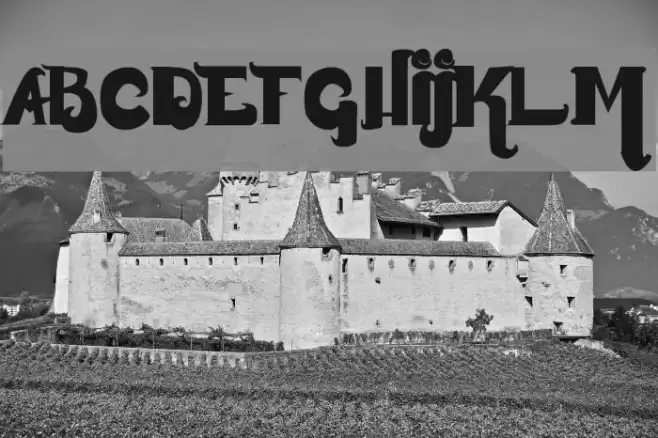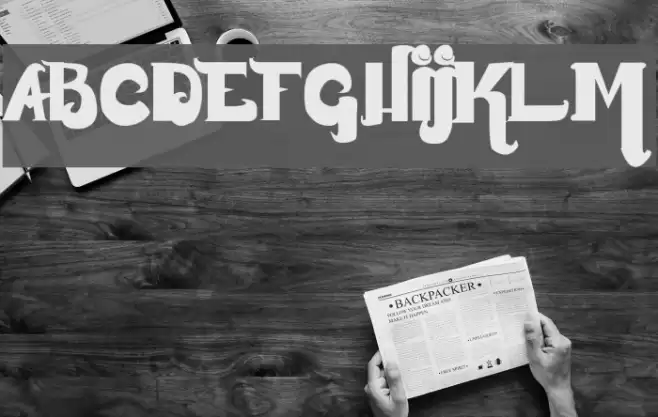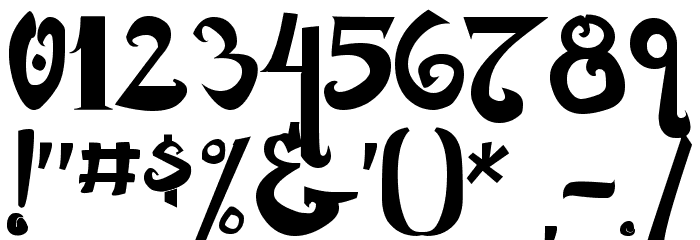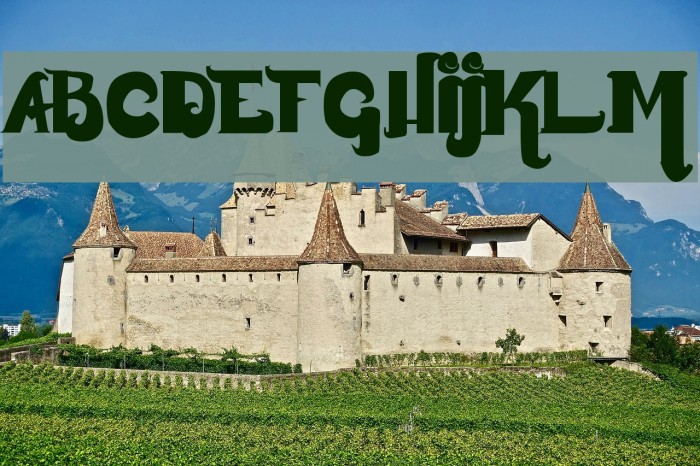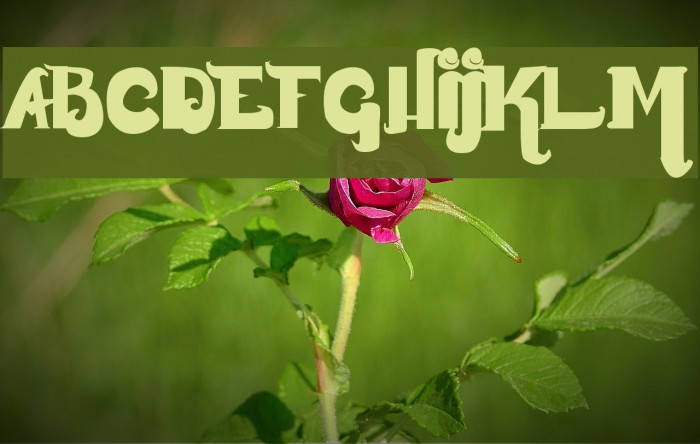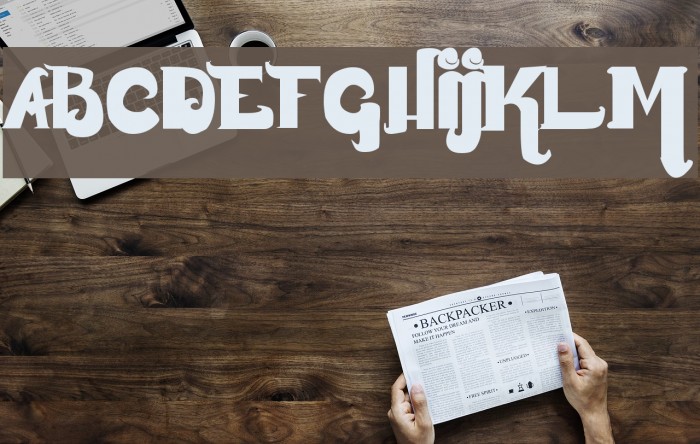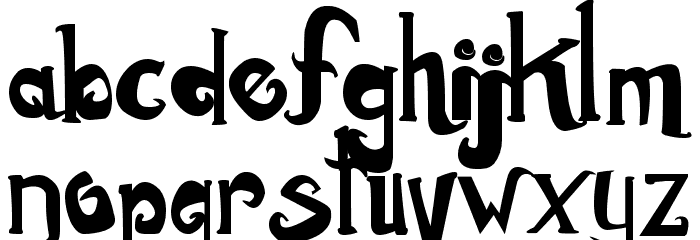
Monstur Font
Monstur Description
This font exhibits a bold and playful design with a unique, whimsical flair. The characters are highly stylized, featuring exaggerated curves and distinctive serifs that give it a lively and dynamic appearance. The uppercase and lowercase letters maintain a consistent style, with some letters incorporating playful loops and swirls. Numbers and special characters follow the same creative theme, making the font suitable for eye-catching designs. Its boldness and decorative elements make it stand out, ideal for projects that require a touch of fun and creativity.
A bold, playful font with whimsical, exaggerated curves and distinctive serifs from Crazy fonts.